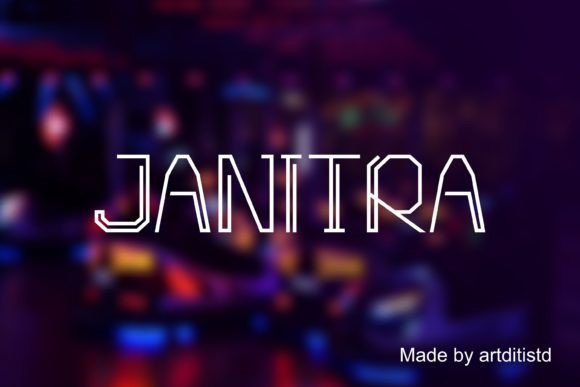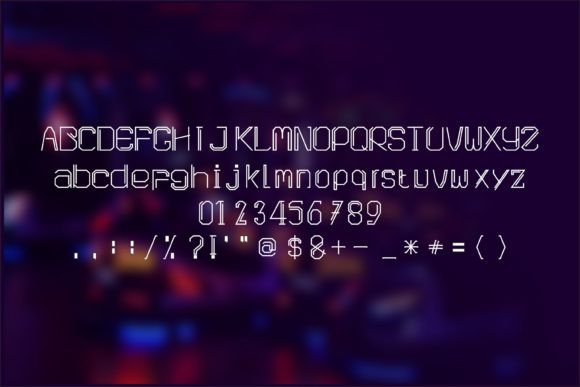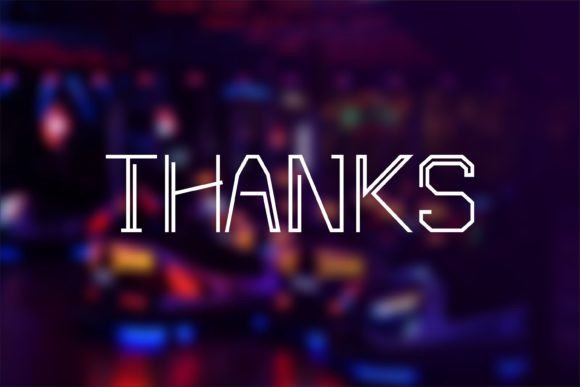
The Birth of a Unique Design: Introducing Janitra Font
Remember the moment when you stumble upon a font that makes you stop, take a deep breath, and think, ‘this is it’? That’s exactly what happened when we discovered the Janitra Font – a game-changing display font that’s about to take your branding projects to the next level.
Janitra Font is more than just a font; it’s a statement piece designed to elevate your brand’s identity. Its modern and outstanding aesthetic makes it perfect for logos, t-shirts, posters, and any other creative project that requires a touch of authenticity. Whether you’re a seasoned designer or just starting out, Janitra Font is an invaluable asset that will help you stand out in a crowded market.
Janitra Font Key Features
- Size: Multi-language support with over 2000 glyphs, including Latin, Cyrillic, Greek, and Devanagari scripts
- Resolution: Supports high-resolution printing and digital displays with clear readability
- Unique Characteristics: Unique, elegant design with a mix of modern and traditional elements, suitable for various design applications
- Font Weight: Multiple font weights available, including regular, bold, italic, and bold italic
- Language Support: Supports multiple languages, including English, Spanish, French, German, Chinese, and many more
Janitra Font Review
As a designer, I was excited to dive into the Janitra Font and see what it had to offer. Overall, I was pleasantly surprised by the unique features and versatility of this font.
- Janitra’s elegant and refined design makes it perfect for high-end branding and luxury products.
- The font’s versatility shines through in its ability to work well in both serif and sans-serif contexts.
- The Janitra Font comes in a wide range of weights, from light to bold, giving designers ample options for their projects.
- The font’s curves and lines are carefully crafted to create a sophisticated and refined look.
- The Janitra Font may not be the best choice for projects that require a bold, eye-catching headline font.
- The font’s subtle nuances may get lost in small text sizes or low-resolution displays.
- The Janitra Font may not be the most suitable choice for projects that require a highly legible font for large bodies of text.
The Janitra Font is a beautiful and sophisticated choice for designers looking to add a touch of elegance to their projects. While it may have some limitations, its unique features and versatility make it a great addition to any designer’s toolkit.
Janitra font is ideal for creating elegant and sophisticated designs, making it perfect for:
- Artistic and creative projects
Remember to experiment with different font sizes, colors, and styles to get the most out of Janitra font.